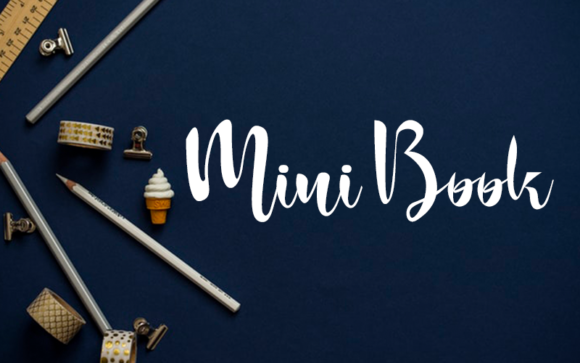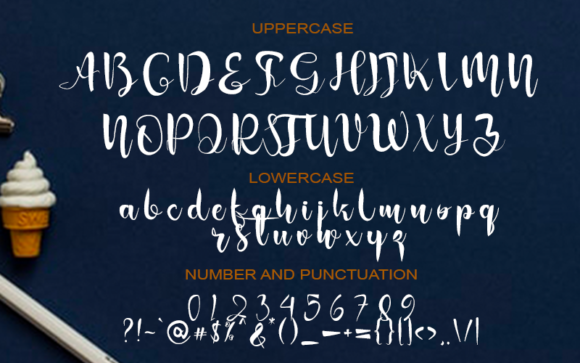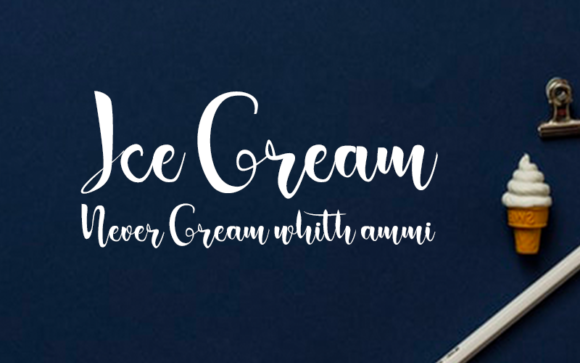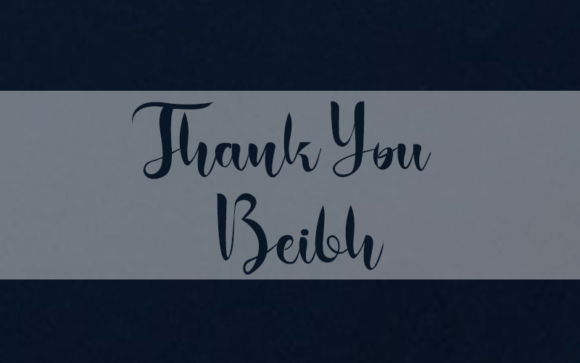
Omg Misticle Font – Free Download
Introduction to Omg Misticle Font
Omg Misticle is an elegant and modern handwritten font that brings its own unique style to any design project.
This font is the perfect fit for all of your logos, branding, social media, and crafty DIY projects .
Key Features of Omg Misticle Font
Why Choose Omg Misticle Font?
Omg Misticle Font offers exceptional quality and versatility, making it a valuable addition to your design toolkit. Whether you’re creating for personal projects or commercial use, Omg Misticle Font delivers professional results.